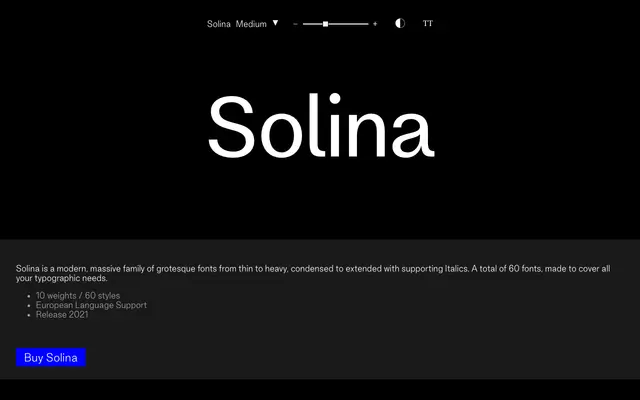
Solina
Good Type Foundry · 2021
A large grotesque superfamily spanning ten weights and three widths, with italics throughout, totalling 60 styles.
Released in 2021 by Good Type Foundry, Solina covers a wide range of typographic needs across condensed, regular and extended widths, each in ten weights from thin to heavy with supporting italics. The 60-style family includes European language support with an extensive accented character set of 172 glyphs. A functional workhorse intended to handle varied typographic demands without switching families.
Described explicitly as grotesque, spanning thin to heavy across condensed to extended widths, consistent with a contemporary neo-grotesque superfamily.